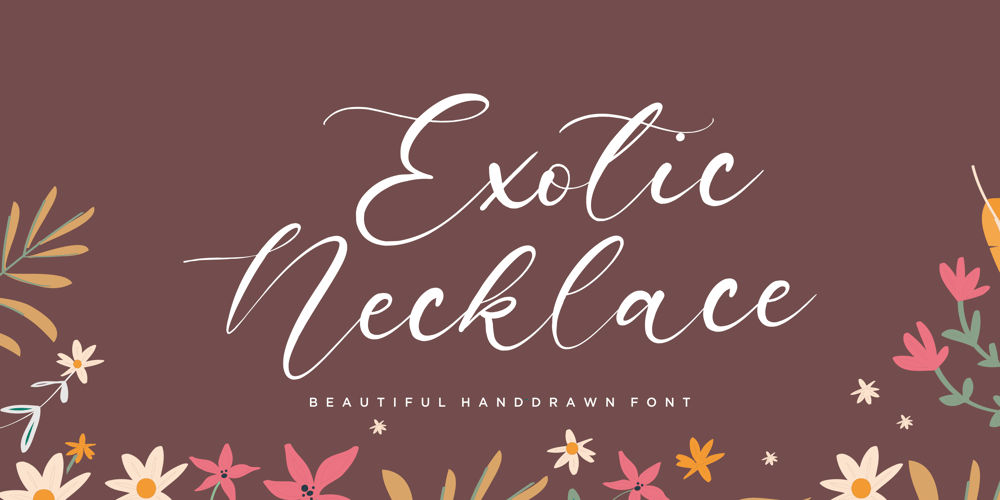
Exotic Necklace Font Family was designed by Restu Angga and published by Balpirick. Exotic Necklace contains 1 styles and family package options. Exotic Necklace is a Beautiful Handdrawn Font.Exotic Necklace is a thin and elegant handwritten font. Use it to make your ideas even more realistic and create spectacular designs!Exotic Necklace also multilingual support.Enjoy the font, feel free to comment or feedback, send me PM or email.